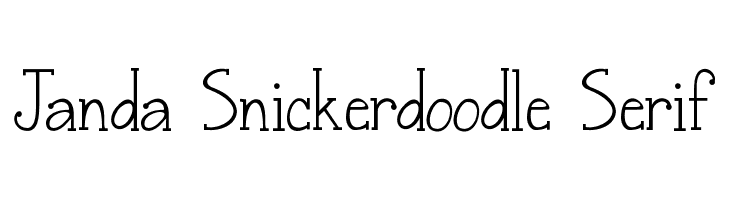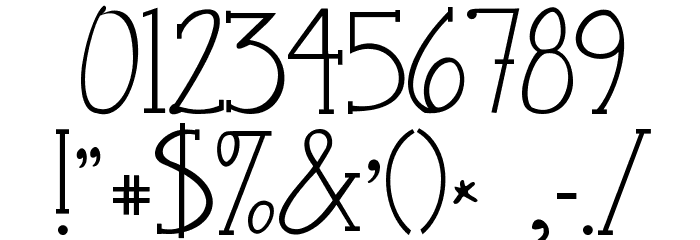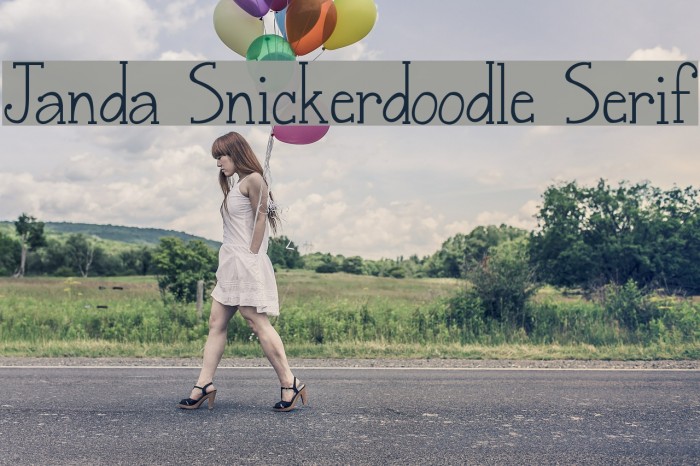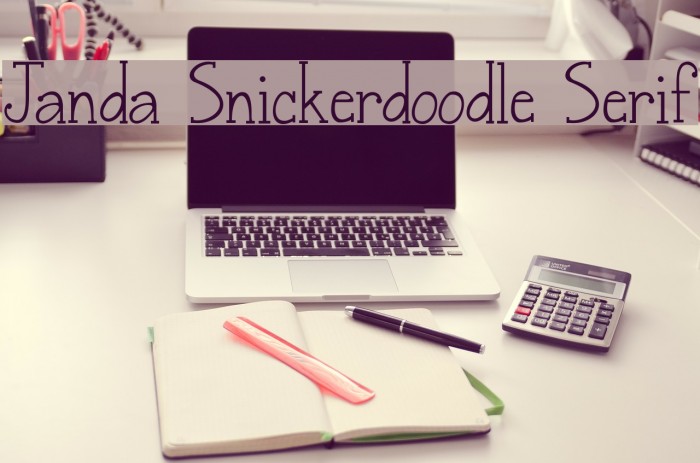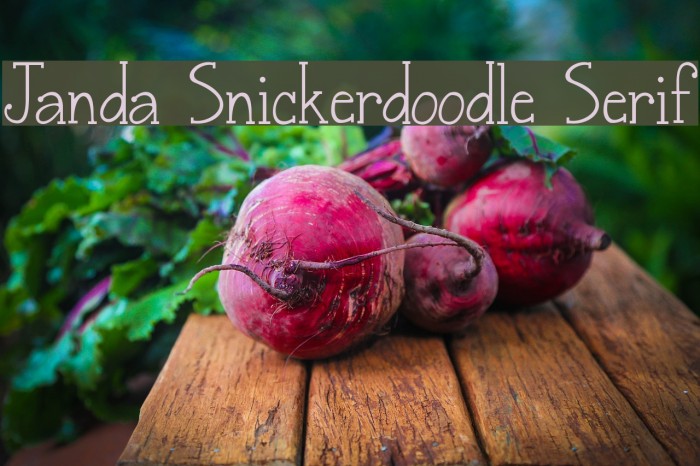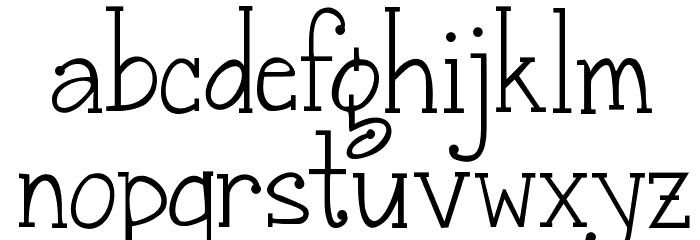
Janda Snickerdoodle Serif Font
Janda Snickerdoodle Serif Description
This font features a playful and whimsical design with a serif style that adds a touch of elegance. The characters are tall and narrow, with a slight slant that gives them a dynamic appearance. The serifs are pronounced, adding a classic touch to the otherwise modern and quirky design. The lowercase letters have a unique charm, with some characters featuring loops and curls that enhance the playful nature of the font. The numbers and special characters maintain the same whimsical style, making the font versatile for various creative projects.
A playful serif font with tall, narrow characters and whimsical details from Uncategorized fonts.
- Proposed Projects: Ideal for children's books, creative branding, playful invitations, and whimsical posters.
- Overall Style: Whimsical
- Use Case: Headlines, Logos, Creative projects